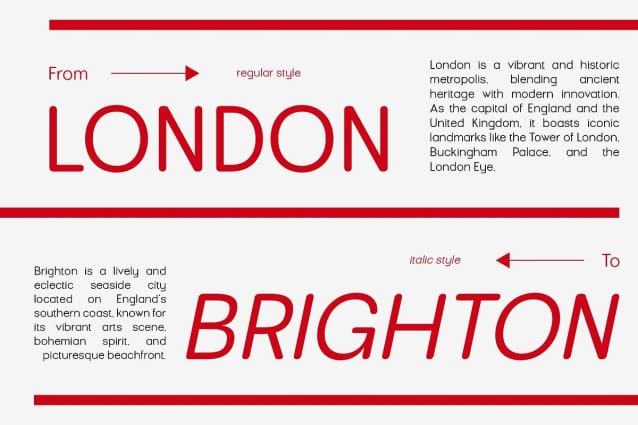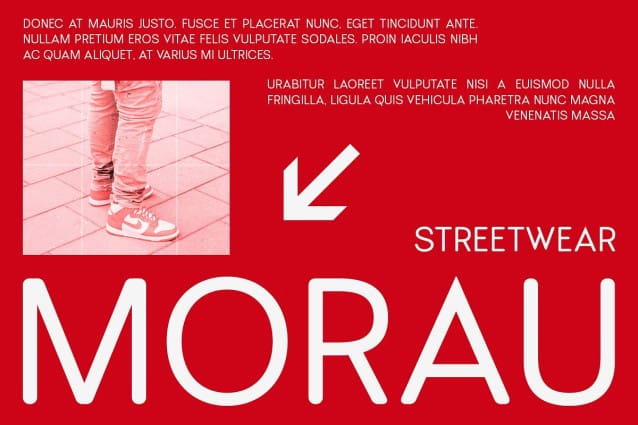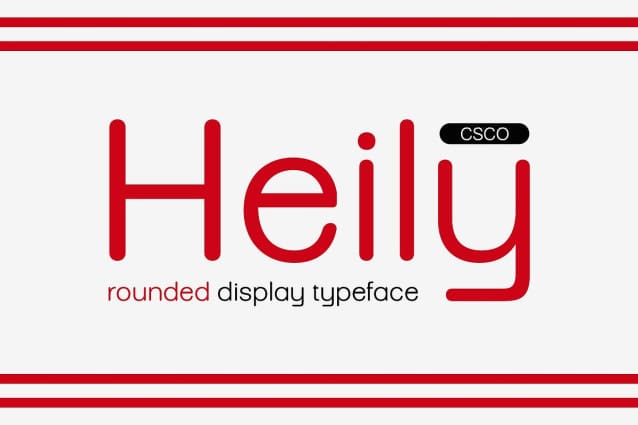
Heily Rounded Font
Heily Rounded Font is a modern sans-serif font that skillfully combines the clean, functional design of grotesque typefaces with the inviting softness of rounded edges. The grotesque style provides a straightforward and slightly assertive character, ensuring excellent readability and clarity across various platforms and mediums.
Friendly and Approachable Design In addition to its professional appearance, Heily Rounded’s rounded edges introduce a welcoming, approachable feel. This soft touch enhances its versatility, making it equally suitable for corporate branding and more casual, user-focused applications like website interfaces and mobile apps. The rounded elements give the font a contemporary yet inviting aesthetic, which can evoke a sense of comfort and accessibility.
Ideal for Multiple Applications This font’s unique design makes it perfect for a variety of applications, from branding and marketing materials to digital user interfaces. Its balance of modern precision and warmth makes Heily Rounded an excellent choice for projects that require both clarity and an engaging visual experience. Whether used in logo design, product packaging, or editorial layouts, this font adds a professional yet approachable tone to any project.